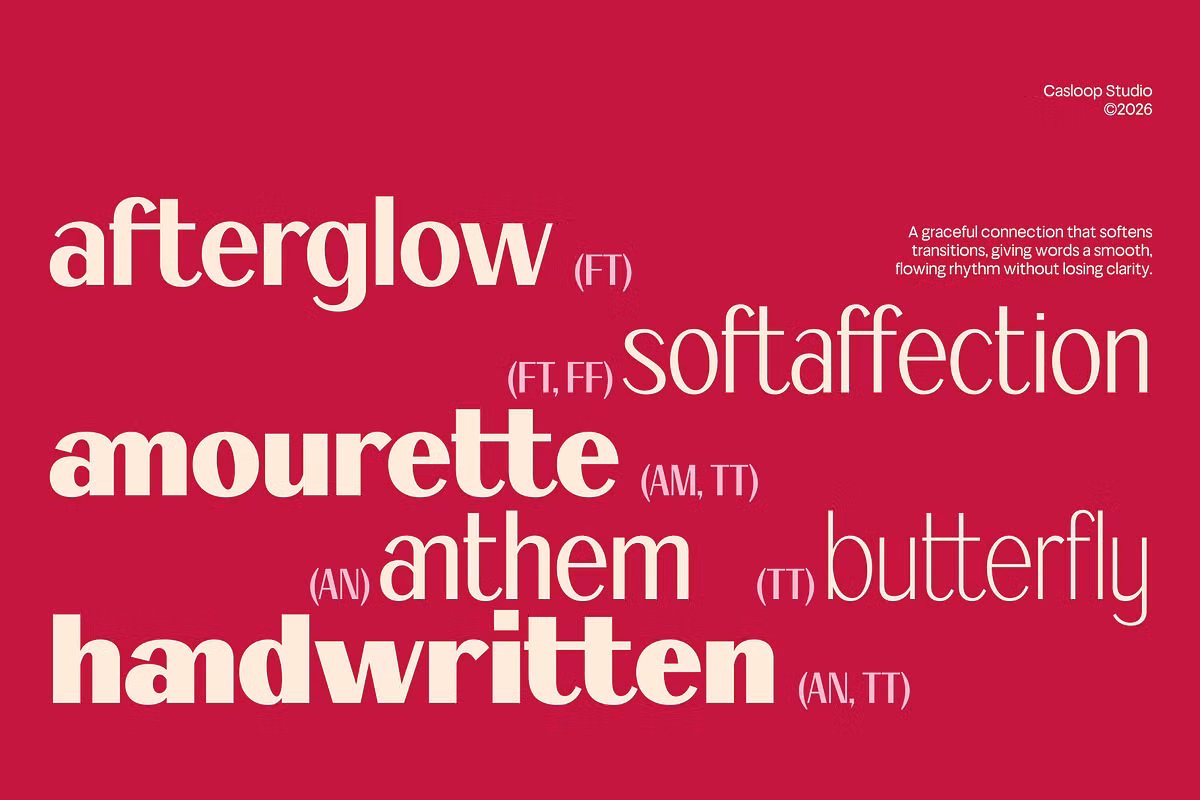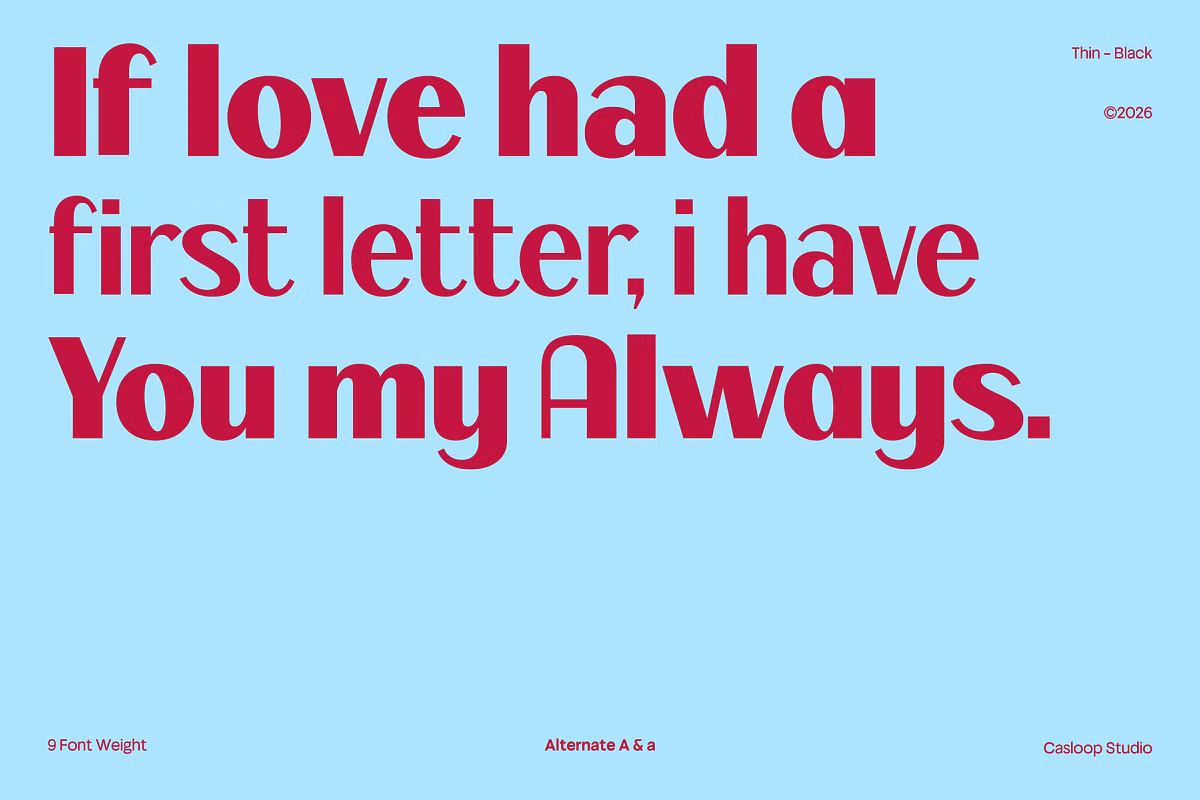
Fagi: Elegant Valentine-Inspired Serif Font for Timeless Design
Introducing Fagi: The Elegant Serif Font
Fagi is a lovely serif font that takes its cue from the classic look of Valentine’s Day. It’s a great mix of old-school charm and sleek sophistication. This font is perfect for projects where you want to make a statement without being too loud. It’s really versatile, so you can use it for all sorts of things. The way it looks is pretty fancy, and the characters are well thought out. Overall, Fagi is a great choice to add some class to your typography and make your design projects stand out. It’s ideal for when you want to show some subtle confidence in your design, rather than going for something too bold. With its elegant appearance, Fagi can elevate your work and give it a refined touch.
Design Style of Fagi
The Fagi design has a classic look with serif details that make it feel timeless. The main letters, like A, R, S, G, and W, are carefully made with balanced spaces and smooth curves, creating a nice balance. This focus on details makes the typeface feel grown-up, dependable, and subtly luxurious. It’s clear that a lot of thought went into making Fagi, with each part working together to create a sense of harmony. The result is a typeface that looks mature and sophisticated, without being too flashy or attention-seeking. Instead, it has a quiet confidence that makes it feel high-end.
Fagi’s gentle rhythm and refined weight range give it a unique typographic character that fits perfectly into different design situations. It looks great in big headings and small body text, staying elegant and easy to read all the time. This makes Fagi a great pick for high-end branding and editorial designs where style and clarity are key. Its versatility and sophistication make it a fantastic choice for designers who want to create a lasting impression.
Character Sets and Features
Fagi has a big collection of characters, including uppercase and lowercase letters, numbers, punctuation, and special pairs of letters that are connected, called ligatures. It also has different versions of some letters, known as stylistic alternates. This means Fagi can be used to write in many languages, like Bosnian, Catalan, Czech, Danish, German, English, Spanish, and lots of others. The idea is to make Fagi useful for people who speak different languages, so it includes all the characters they need. With Fagi, you can write in many languages without any problems, which is really useful for people who need to communicate in different languages.
The Fagi font comes in a variety of styles, like Thin, Extralight, Light, Regular, Medium, Semibold, Bold, Extrabold, and Black. This means designers can use it in lots of different situations, from creating fancy invitations to making big, bold signs. It gives them the freedom to express different feelings and ideas through the way the words look. Whether they want to be subtle or really grab attention, Fagi’s range of weights makes it a great choice. It’s all about using the right typography to get the message across, and Fagi’s versatility makes it easy to do just that.
Use Cases for Fagi
Fagi is ideal for a variety of design applications that seek to capture an essence of elegance and sophistication. Here are some of the primary use cases for this exquisite font:
- Logos: Fagi has some really great qualities that make it perfect for designing a brand’s image, especially for companies that want to show they’re high-end and reliable.
- Editorial Layouts: Fagi’s readability and graceful design make it perfect for editorial layouts, whether in magazines, books, or online publications.
- Food Branding: The font’s classic charm can add a touch of elegance to food packaging and branding, appealing to consumers who appreciate quality and sophistication.
- Valentine Campaigns: Given its Valentine-inspired roots, Fagi is naturally suited for romantic themes, making it a perfect choice for Valentine’s Day promotions and related events.
- Premium Designs: Any design project that aims for a timeless, high-end look can benefit from incorporating Fagi into its typography.
Pairing Suggestions for Fagi
When you’re looking to pair fonts with Fagi, there are several other typefaces that really bring out its elegant and refined qualities. Some great options to consider include:
- Playfair Display: A great serif font that goes really well with Fagi, adding a classic touch and creating a nice balance.
- Cormorant Garamond: The sophisticated look of Cormorant Garamond makes it a perfect match for Fagi, adding depth and character to your designs.
- Libre Baskerville: This modern serif font complements Fagi’s elegance, creating a harmonious balance between traditional and contemporary styles.
- Didot: The high contrast of Didot works well with Fagi, especially in high-end branding and fashion-related projects.
- Baskerville: A classic pairing that enhances Fagi’s timeless appeal and is suitable for a range of design applications.
Fagi is a really beautiful serif font that brings together a classic feel and a sophisticated look. The way its characters are designed is very thoughtful, and it can be used in many different ways, making it a great tool for designers who want to create designs that are timeless and luxurious. If you’re working on things like branding, editorial projects, or special campaigns, Fagi’s unique style will help make your ideas stand out and leave a lasting impression on the people who see them. Its compatibility with different design software is also a big plus, making it easy to use in a variety of projects. Overall, Fagi is a great choice for anyone who wants to add a touch of elegance and refinement to their designs.